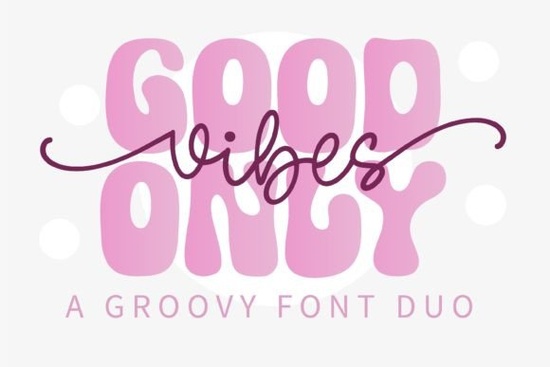
If you're working on a design that needs a laid-back, groovy feel think vintage posters, boho branding, or summer festival merch the Good Vibes Only Duo Font might be exactly what you’re looking for. This retro-inspired pair includes both a bold display style and a smooth monoline script, giving you flexibility without losing that unmistakable 70s-inspired charm. It’s especially handy if you want to mix headline energy with handwritten warmth in the same project.
What makes this duo font stand out is how well the two styles complement each other. The display version grabs attention with its chunky, rounded letterforms, while the script keeps things flowing and organic. Together, they create visual rhythm ideal for quotes, apparel slogans, social graphics, or even packaging that leans into earthy, mindful aesthetics.
Who is this font best suited for?
Whether you’re a print-on-demand seller crafting t-shirts with affirmations, a small business owner designing café chalkboards, or a hobbyist making handmade greeting cards, Good Vibes Only delivers personality without complexity. You don’t need advanced design skills to make it work it shines even in simple layouts.
For crafters using Cricut or Silhouette machines, the clean outlines and consistent stroke width (especially in the monoline version) mean easy cutting and minimal weeding. And because it’s a duo font, you can quickly switch between styles to test different moods without sourcing multiple typefaces.
How does it compare to other retro display fonts?
Retro fonts come in many flavors from psychedelic swirls to minimalist 60s sans-serifs. Good Vibes Only sits comfortably in the “friendly hippie” zone: not too ornate, not too rigid. If you’ve liked fonts like Picky Retro for its playful geometry or Have a Nice Day, Honey for its cheerful bounce, you’ll likely appreciate the relaxed confidence of this duo.
It also pairs well with more structured companions. For example, if you’re layering typography in a magazine layout, you might balance Good Vibes Only’s curves with something crisp like Magazine Design Font. Or, if your project leans coastal rather than cosmic, Coastal Delight offers a breezier alternative with similar hand-lettered ease.
And while it’s firmly rooted in the 70s vibe, it doesn’t feel dated. That’s a common challenge with vintage fonts some lean so hard into nostalgia they become costume-like. Good Vibes Only avoids that by keeping proportions modern and spacing generous, which helps it feel fresh even on digital screens.
Where can you use it effectively?
- Apparel & Merch: T-shirts, tote bags, or stickers with phrases like “Stay Wild” or “Peace Begins Within.”
- Social Media Quotes: Pair the script with soft pastel backgrounds for Instagram carousels or Pinterest pins.
- Event Branding: Yoga retreats, music festivals, or wellness pop-ups benefit from its calming yet expressive tone.
- Print Collateral: Flyers, menus, or workshop handouts where approachability matters more than formality.
One thing to note: because it’s a display font, it’s not meant for body text. Stick to headlines, short phrases, or decorative accents. But within those limits, it’s highly versatile.
If you enjoy exploring historical aesthetics, you might also like Old Vintage Victorian III though that one leans ornate and dramatic, whereas Good Vibes Only keeps things grounded and sunny.
- Will I use both the display and script versions, or just one? (Having both adds long-term value.)
- Am I pairing it with imagery or colors that support its retro-but-modern mood? Think terracotta, sage green, mustard yellow, or faded denim tones.
If the answer to most of those is yes, this font could save you time and spark inspiration. Sometimes the right typeface doesn’t just complete a design it suggests the whole direction.
Next step: Try sketching three quick mockups using only the words “good vibes” in both styles of the font. See how each version changes the feeling. That 10-minute exercise often reveals whether a font truly fits your vision or if another option like Coastal Delight might suit your current project better.